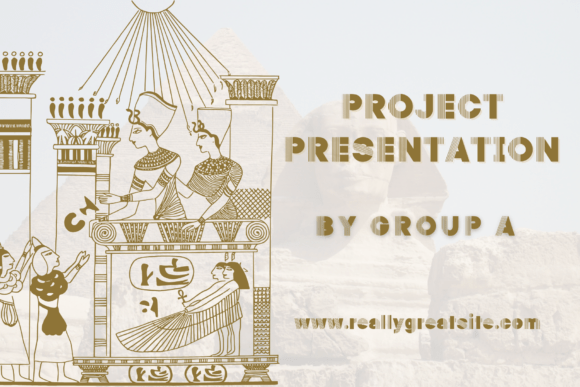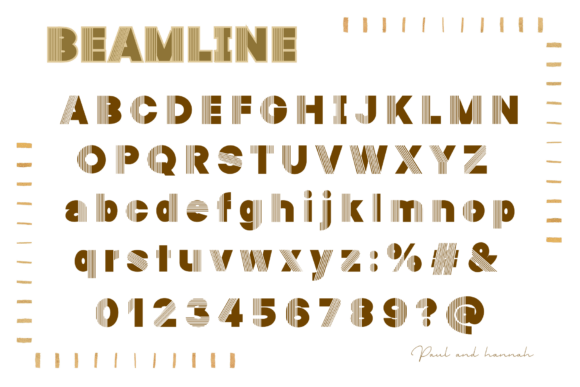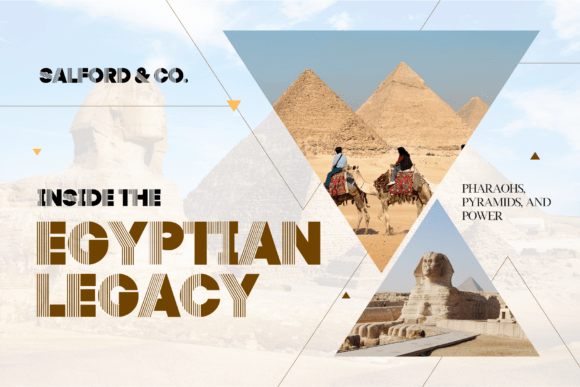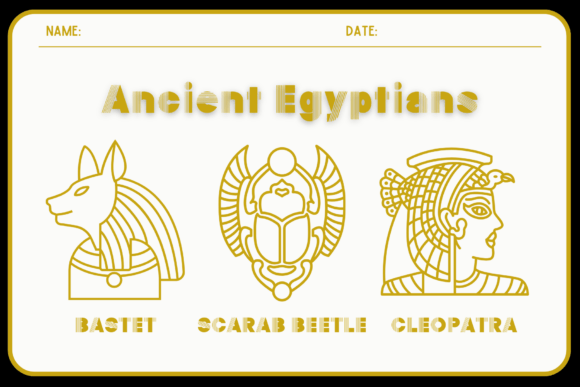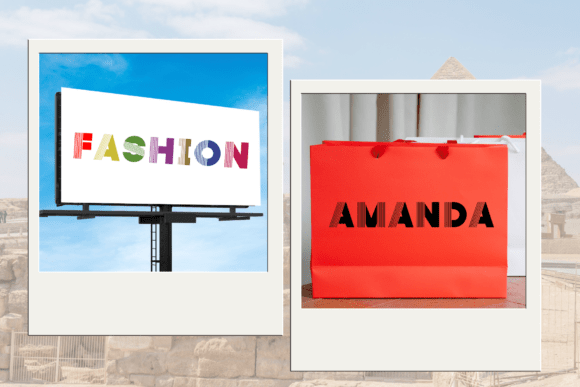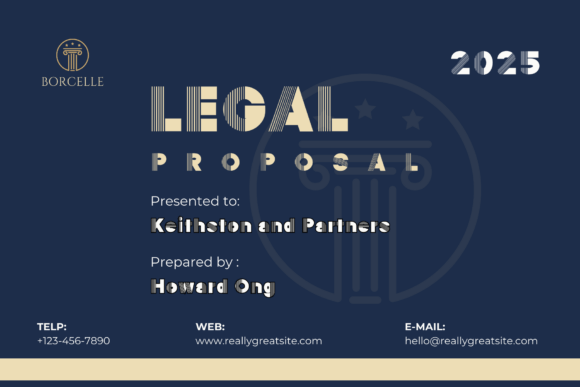
Introducing Beamline Font: The Perfect Blend of Geometric Forms and Futuristic Detailing
In the world of typography, a new font has emerged that is sure to capture the attention of designers and crafters alike. Beamline Font is a striking modern display typeface that combines solid geometric forms with thin parallel line detailing, creating a bold, futuristic, and artistic look. In this article, we’ll dive into the unique features of Beamline Font and explore how it can elevate your design projects.
A Unique Design Approach
BEAMLINE is designed with a split-beam style, where each character is crafted with a perfect blend of solid geometric forms and thin parallel line detailing. This experimental structure gives the font a high contrast between solid shapes and fine stripes, adding depth, movement, and a unique visual rhythm. The result is a font that is both visually striking and memorable.
Perfect for Modern Brands and Creative Designers
Beamline Font is especially perfect for modern brands and creative designers looking for something unique and memorable. Its sleek and contemporary design makes it ideal for a wide range of applications, including posters, logo concepts, album covers, fashion branding, editorial layouts, and digital artworks. Whether you’re looking to create a bold statement or add a touch of sophistication to your design, Beamline Font is the perfect choice.
Key Features of Beamline Font
- Geometric Forms: Beamline Font features solid geometric forms that provide a strong foundation for each character.
- Thin Parallel Line Detailing: Thin parallel lines add a level of sophistication and elegance to each character, creating a unique visual rhythm.
- High Contrast: The high contrast between solid shapes and fine stripes adds depth and movement to each character, making it visually striking.
- Split-Beam Style: The split-beam style design approach gives each character a bold, futuristic, and artistic look.
Design Applications
Beamline Font is versatile and can be used in a wide range of design applications, including:
- Posters: Create eye-catching posters with Beamline Font that grab the attention of your audience.
- Logo Concepts: Use Beamline Font to create unique and memorable logo concepts that represent your brand.
- Album Covers: Add a touch of sophistication to your album covers with Beamline Font.
- Fashion Branding: Use Beamline Font to create bold and stylish fashion branding that stands out.
- Editorial Layouts: Add a level of elegance to your editorial layouts with Beamline Font.
- Digital Artworks: Use Beamline Font to create visually striking digital artworks that showcase your creativity.
Why Choose Beamline Font?
Beamline Font is the perfect choice for designers and crafters looking for a unique and memorable font that can elevate their design projects. Here are some reasons why:
- Unique Design: Beamline Font features a unique design approach that sets it apart from other fonts.
- Versatility: Beamline Font is versatile and can be used in a wide range of design applications.
- Memorability: Beamline Font is designed to be memorable, making it perfect for branding and advertising applications.
- Elegance: Beamline Font adds a level of elegance and sophistication to any design project.
In conclusion, Beamline Font is a striking modern display typeface that is sure to capture the attention of designers and crafters alike. Its unique design approach, versatility, and memorability make it the perfect choice for a wide range of design applications. Whether you’re looking to create a bold statement or add a touch of sophistication to your design, Beamline Font is the perfect choice.